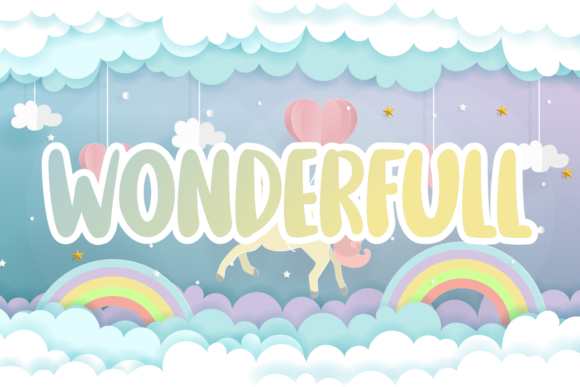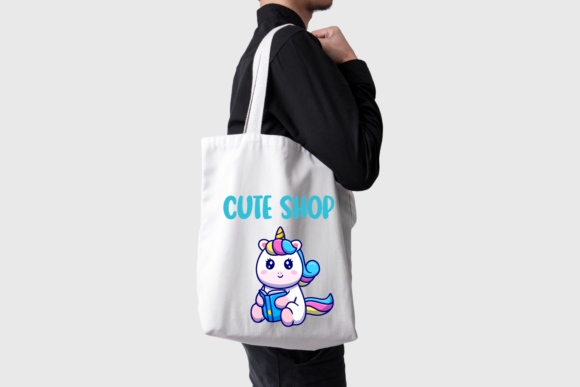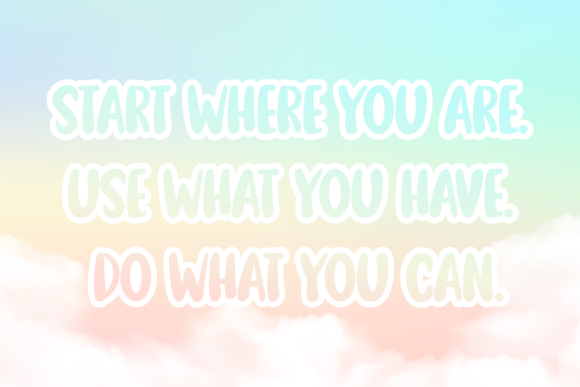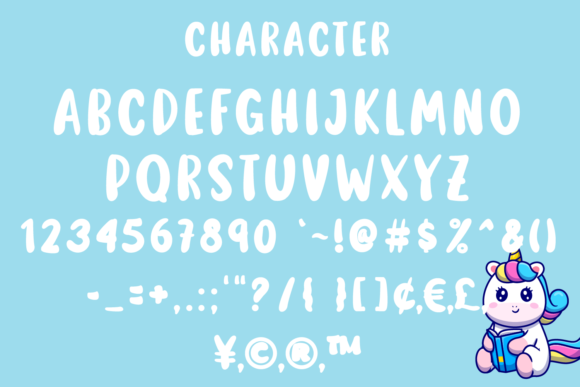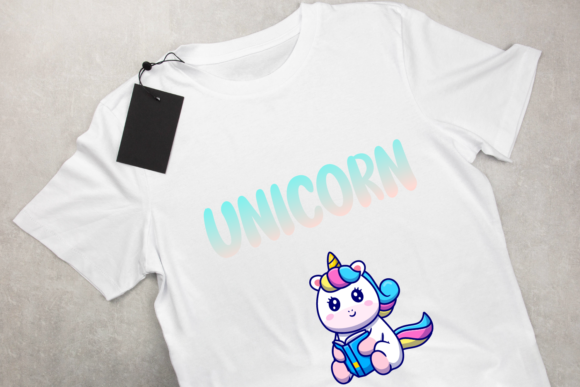
Discover the Magic of Blue Unicorn Font
Have you ever sat at your desk, staring blankly at a blank canvas, waiting for inspiration to strike? It’s a feeling we’ve all been there, and it’s precisely in those moments that we need a little something to spark our creativity. For me, it’s often a font that sets the tone for the entire design.
Enter the enchanting Blue Unicorn Font, a delightful display font that’s sure to add a dash of whimsy to your designs. With its thick, playful letters and joyful vibe, this font is the perfect companion for any creative project. Whether you’re designing a children’s book, a wedding invitation, or a social media graphic, Blue Unicorn Font is sure to bring a smile to your face and your audience’s.
Blue Unicorn Font Key Features
- Unique Characteristics: The Blue Unicorn Font features a distinctive, hand-drawn design with a touch of whimsy, making it perfect for creative and artistic projects.
Blue Unicorn Font Review
Overall, I found the Blue Unicorn Font to be a visually appealing and creative option for designers. ✨ The font’s unique blend of modern and whimsical elements makes it perfect for projects that require a touch of magic.
Here are some of the strengths I observed:
- The font’s curves and lines are well-balanced, making it easy to read even in larger sizes.
- The subtle gradient effect adds a layer of depth and visual interest to the font.
- The font’s versatility makes it suitable for a wide range of design applications, from logos to branding materials.
- The font’s quirkiness can sometimes make it difficult to pair with other fonts or design elements.
- The font may not be suitable for projects that require a more formal or professional tone.
- The font’s unique characteristics may not translate well to smaller sizes or low-resolution displays.
- ⚠️ I also noticed some inconsistencies in the font’s kerning, which can affect the overall readability.
Overall, I would recommend the Blue Unicorn Font for designers who are looking for a unique and creative option for their projects. With some careful consideration of its limitations, this font can add a touch of magic to any design.
The Blue Unicorn Font is ideal for whimsical and magical designs, such as:
- Children’s book covers
- Party invitations
- Wedding stationery